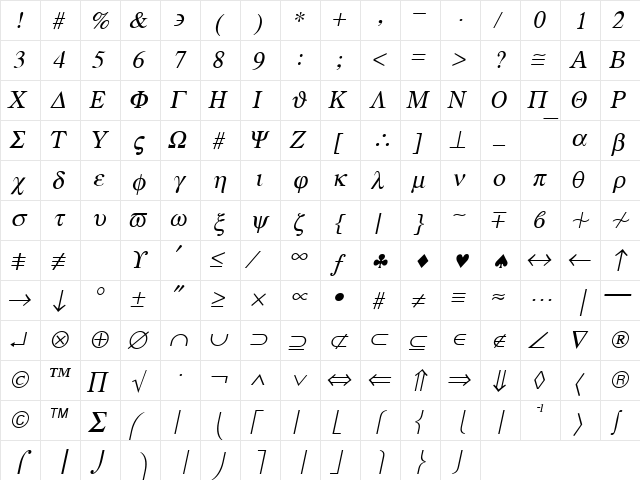
Greek Italic
Design Context for Greek Typeface
Greek offers clean, dependable letterforms without strong stylistic allegiance, making it a practical choice for designers who need flexibility. The dynamic lean of this cut emphasises speed and emphasis in any layout.
Pro Tip: Use Greek for emphasis, pull quotes, and subheadings where its slanted energy can add rhythm to the layout.